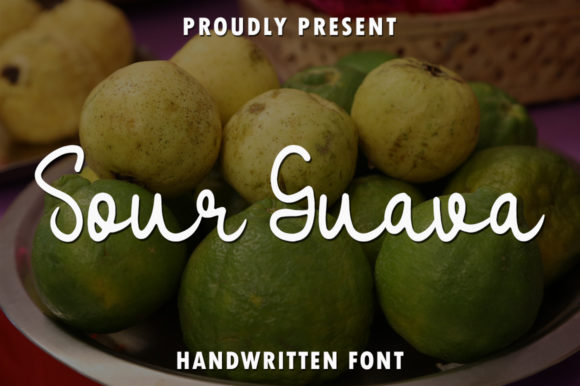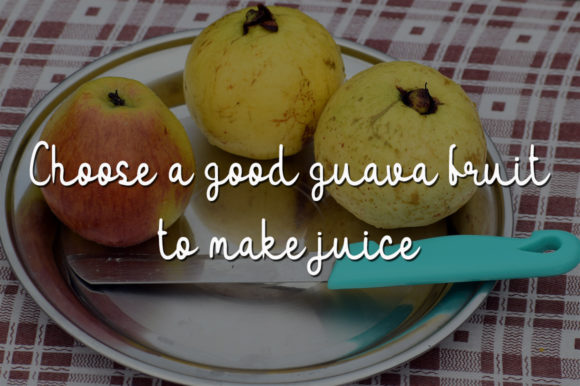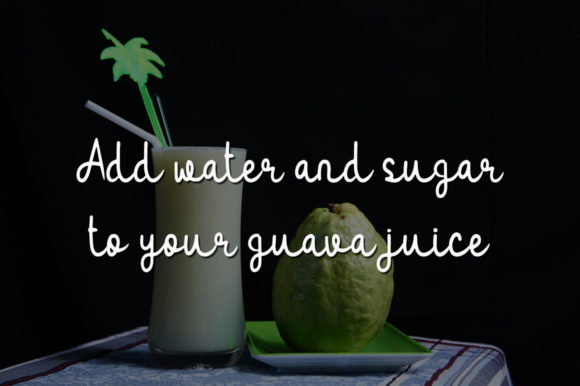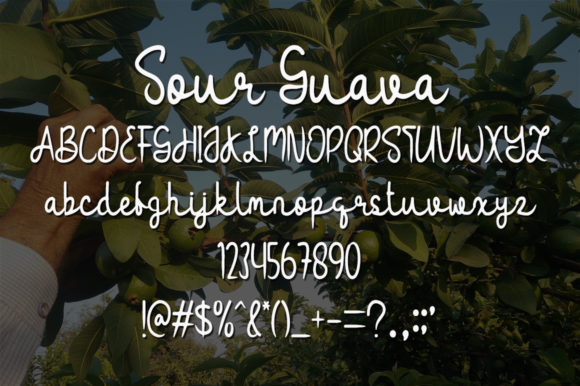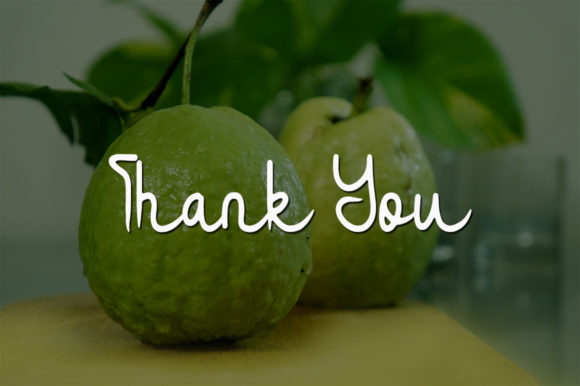
Sour Guava Font
About Sour Guava Font
Sour Guava is a fine and distinct handwritten font that adds a touch of uniqueness and elegance to your designs. With its adaptable and flexible letters, this font showcases a harmonious blend of sophistication and creativity.
The beauty of Sour Guava lies in its intricate details and graceful strokes. Each letter is carefully crafted, displaying a distinct and refined style. The font’s fine and distinct appearance makes it suitable for a wide range of design projects, from invitations and cards to logos, packaging, and more.
When incorporated into designs, Sour Guava captivates the eye with its versatility and style. The font’s adaptable nature allows you to explore different creative possibilities and create astounding designs. Whether you’re working on branding materials, editorial layouts, or social media graphics, Sour Guava adds a touch of elegance and sophistication that elevates your designs to new heights.
The versatility of Sour Guava extends to both formal and informal designs. Its adaptable letters can be used to create visually stunning logos, where a sense of uniqueness and sophistication is desired. Additionally, the font’s flexibility makes it equally suitable for more casual designs, such as social media posts, blog headers, and event invitations, where a touch of creativity and style is needed.
The legibility and readability of Sour Guava ensure that your message is conveyed clearly and beautifully. The font’s fine and distinct letters make it easy for readers to engage with your designs and absorb the information presented. Whether it’s a headline, a quote, or a body of text, Sour Guava ensures that your content stands out and leaves a lasting impression.
Sour Guava’s distinct style and adaptability make it a perfect choice for a wide range of design projects. Its versatility allows you to create astounding designs across various mediums, including print and digital platforms. Whether you’re designing for a wedding, a fashion brand, a magazine, or any other creative endeavor, Sour Guava adds a touch of sophistication and elegance that sets your designs apart.
In summary, Sour Guava is a fine and distinct handwritten font that adds a touch of uniqueness and elegance to your designs. Its adaptable and flexible letters make it a work of art, allowing you to create astounding designs that captivate and engage your audience. Fall in love with its incredibly versatile style and use it to create visually stunning and impactful designs that leave a lasting impression.